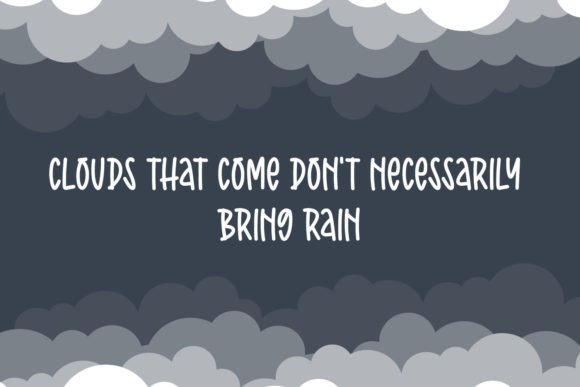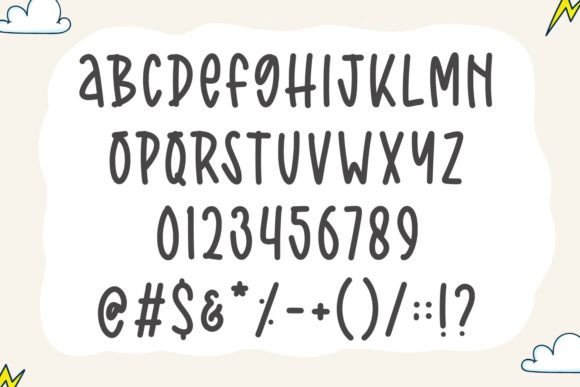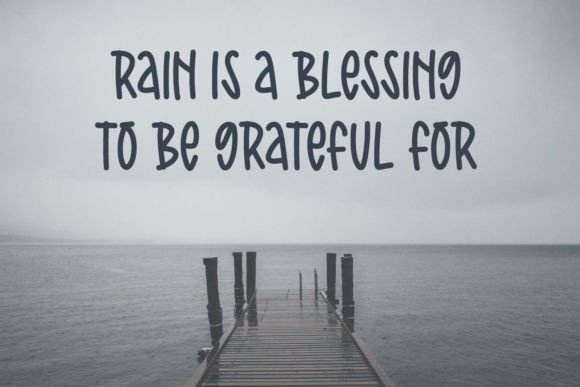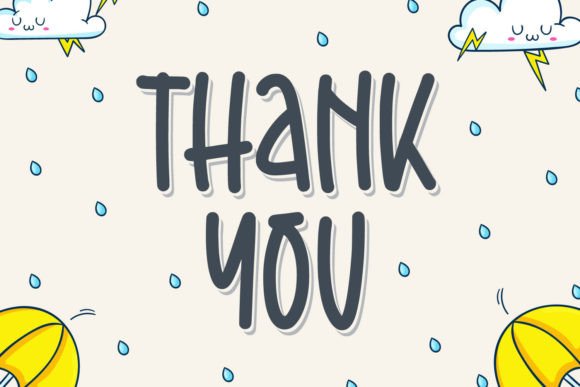
Introduction to Salvia Cloudy Font
Salvia Cloudy is a friendly and playful handwritten font.
Cute and a little bit quirky, this font is suitable for fun-themed design projects .
Key Features of Salvia Cloudy Font